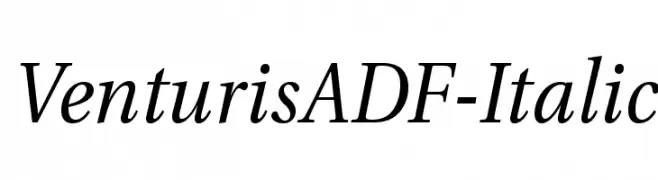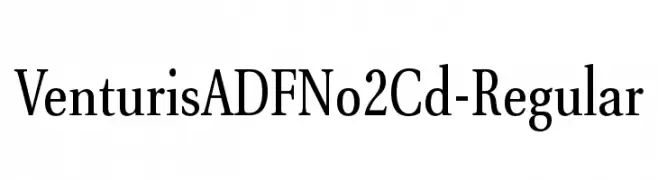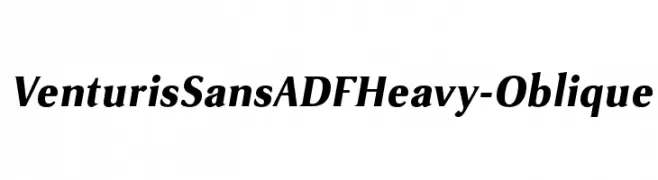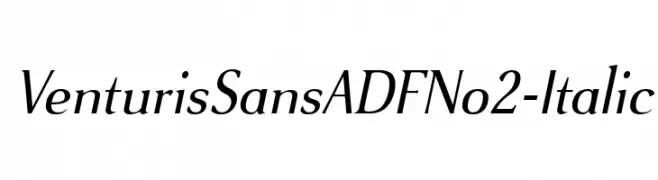
A bold, oblique font with a dynamic and impactful style.
A classic serif typeface with elegant strokes and moderate contrast.
A bold, italic serif font with a classic and elegant style.
A bold, italicized font with a modern and elegant style.
A bold, italic serif font with a classic and elegant style.
An elegant serif italic font with moderate contrast and refined serifs.
A classic italic serif typeface with elegant curves and a refined appearance.
An elegant italic serif font with smooth curves and classic style.
A bold italic font with modern elegance and medium contrast, ideal for dynamic designs.